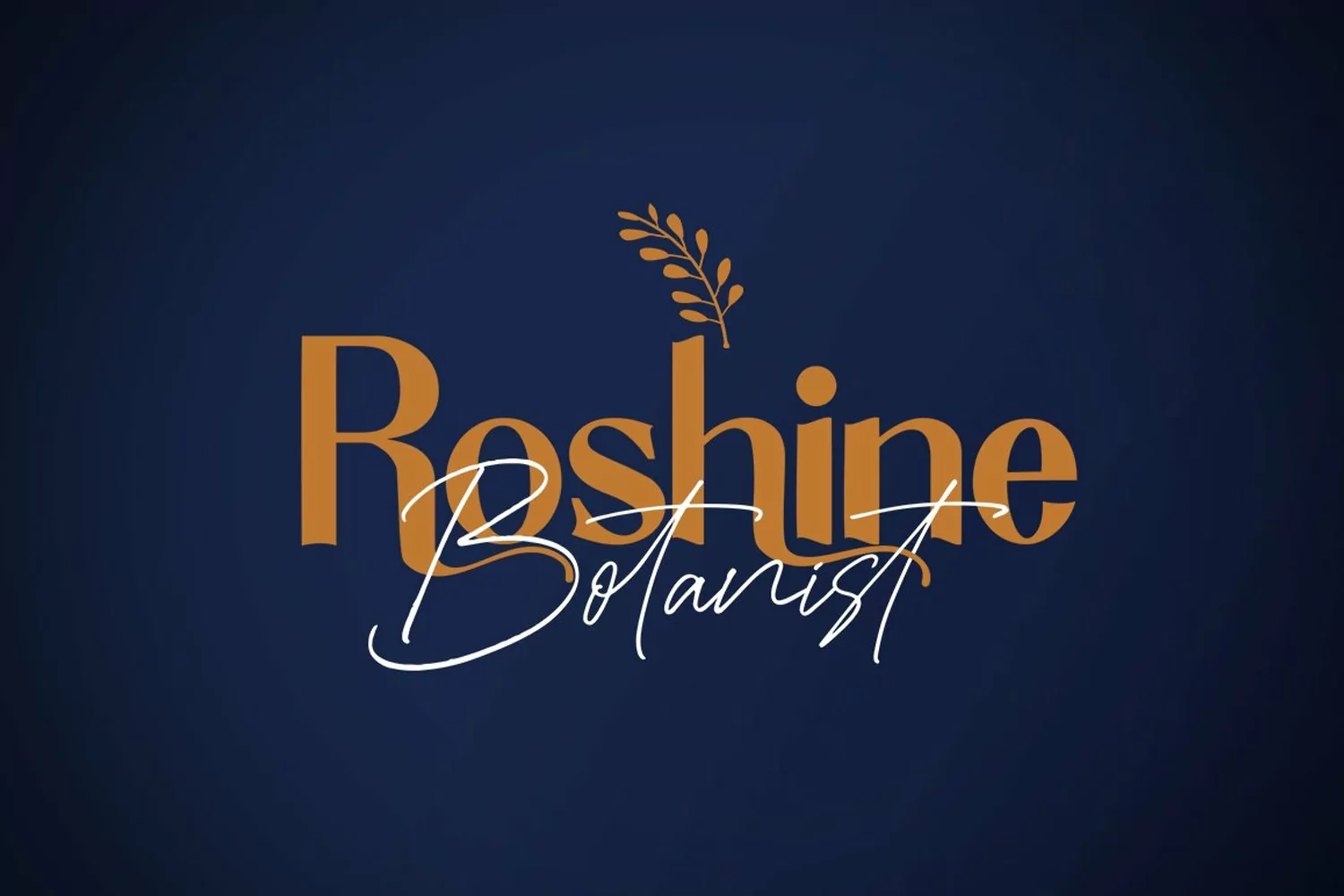
Resgold Willgets
Resgold Willgets is a luxury font duo consisting of elegant script and serif that are very attractive.
Also included in this product are more than 20 hand-drawn extras for a variety of your design needs.
-Resgold Willgets Script, handwritten script fonts that I wrote using markers, I made it look very clean and attractive containing upper and lower case characters, all punctuation, numbers and support for many languages. This font also also contains several ligature to help the text look naturally.
-Resgold Willgets Serif, the latest, stylish and modern Serif that contains uppercase and lowercase characters, also includes alternatives to all uppercase and lowercase letters all punctuation, numbers, and multi-language support.
-Resgold Willgets extras, has more than 20 extras made by hand so that it looks natural for a variety of your design needs.